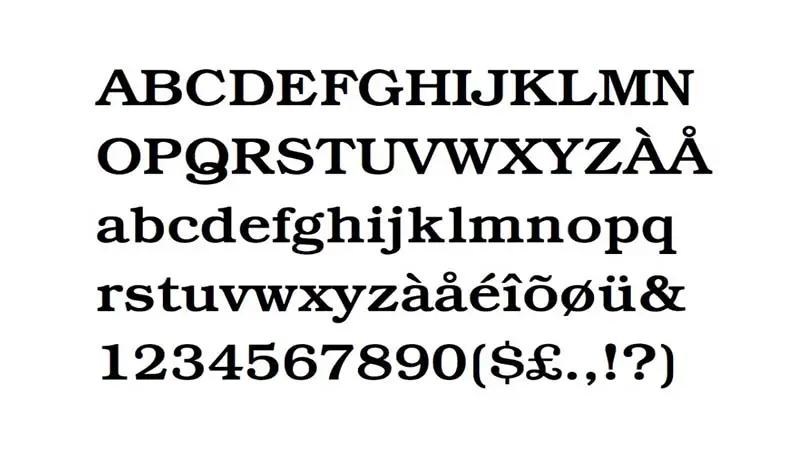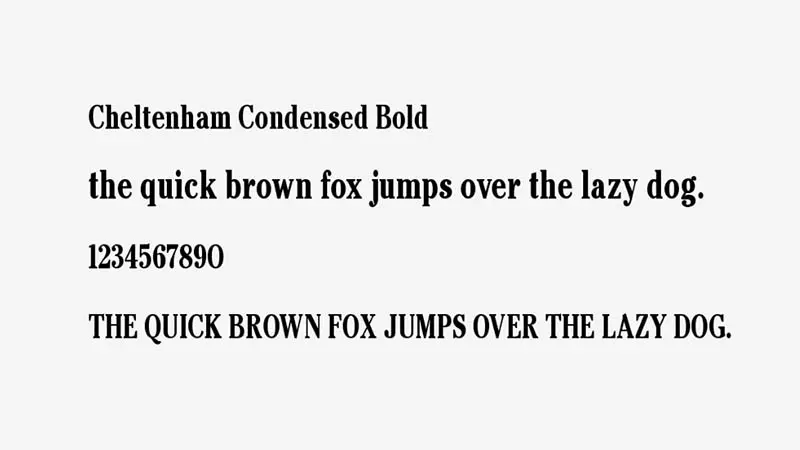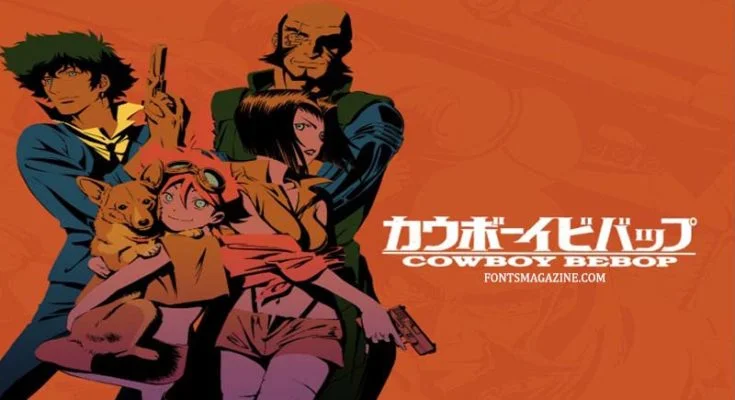
Cowboy Bebop Font
Cowboy Bebop Font is a Japanese animated television series released in 1998. The first premiere was in Japan on TV Tokyo since 3 April 1998. When it was dubbed in Englis…
Cowboy Bebop Font is a Japanese animated television series released in 1998. The first premiere was in Japan on TV Tokyo since 3 April 1998. When it was dubbed in English language and released over the world. It got a tremendous success due to its story, voice acting, animation, soundtrack, and characters. That’s why the demand for the Cowboy Bebop Font has increased.